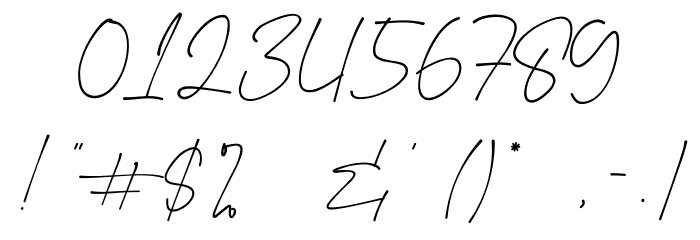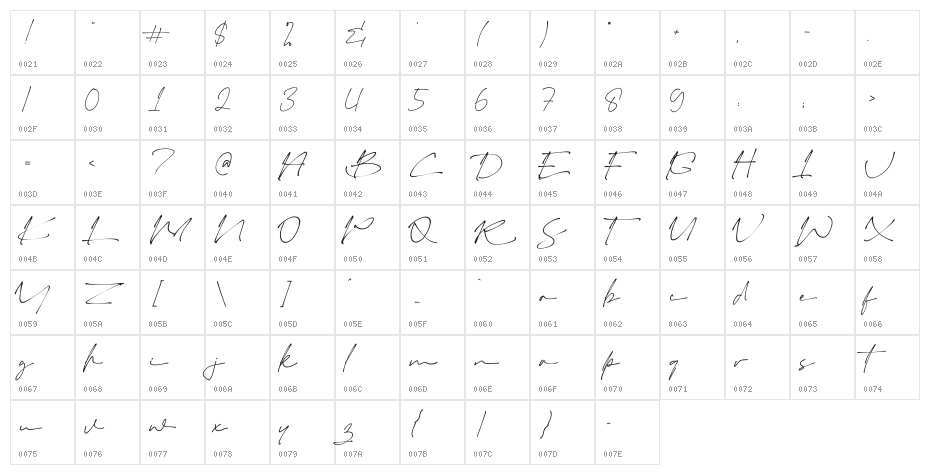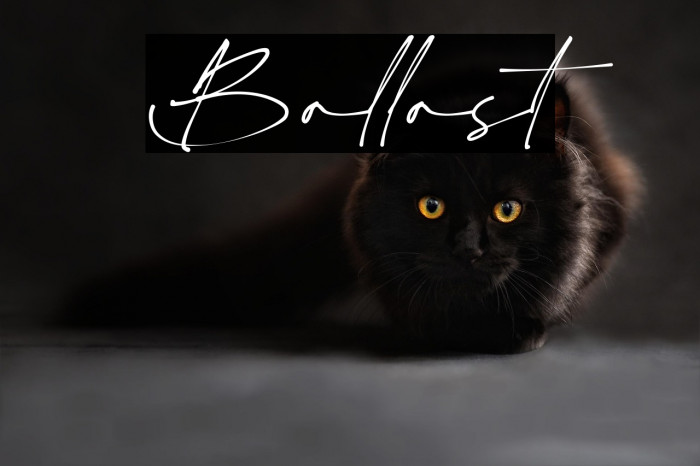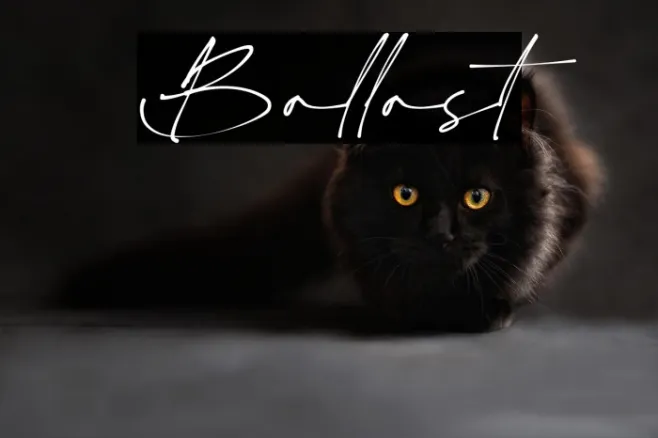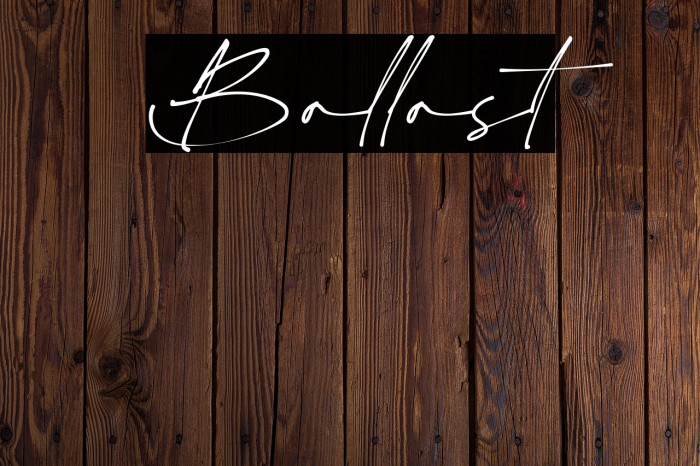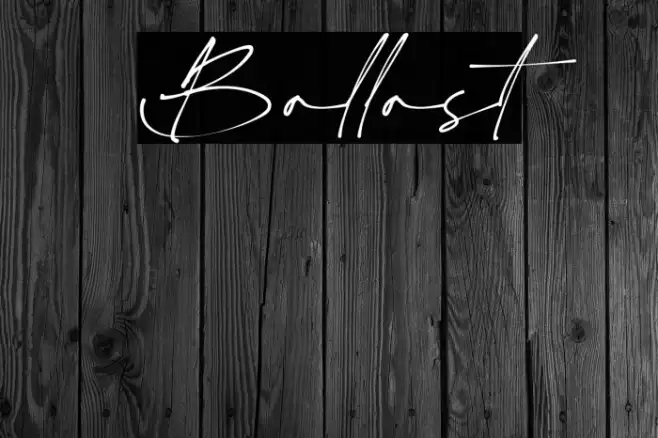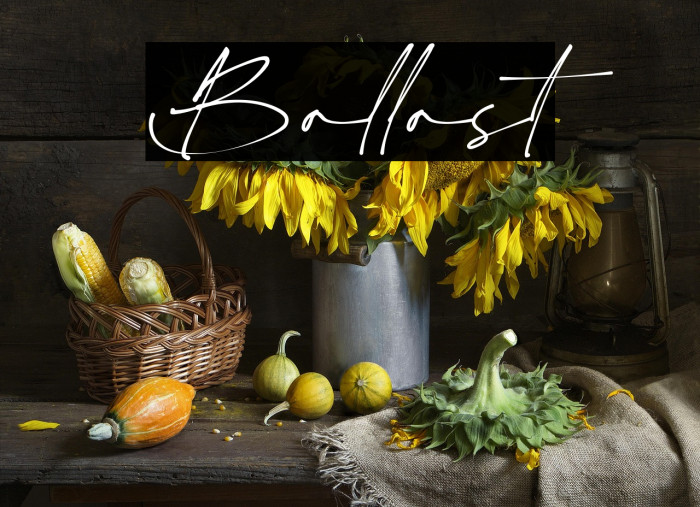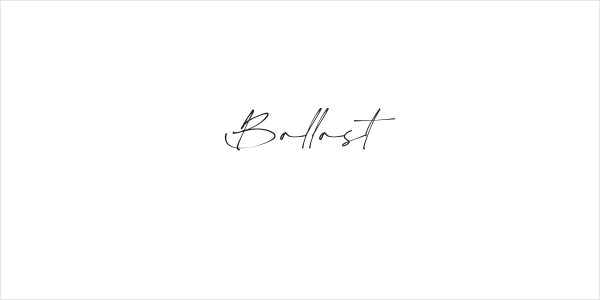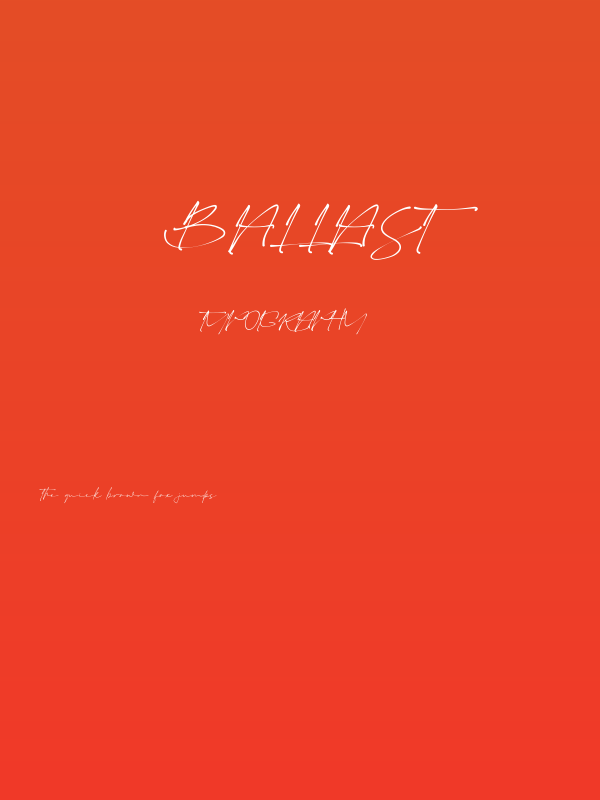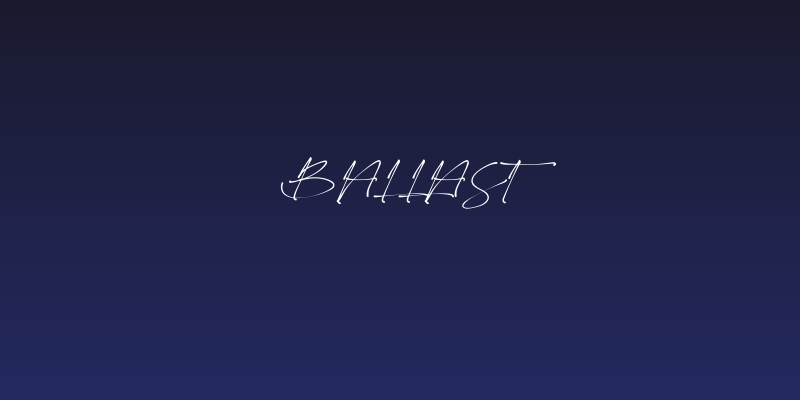
Ballast Font
Ballast Description
This font exhibits a dynamic and fluid handwritten style, characterized by its elegant and flowing script. The letters are connected in a natural, cursive manner, giving it a personal and informal touch. The strokes are thin and consistent, with a slight variation that adds to its organic feel. The uppercase letters maintain a consistent height, while the lowercase letters have a more varied baseline, enhancing the handwritten effect. Numbers and special characters are seamlessly integrated, maintaining the same fluidity and style. This font is perfect for projects that require a personal, human touch, such as invitations, greeting cards, or personal branding.
| Proposed Projects | Ideal for invitations, greeting cards, personal branding, and creative projects requiring a human touch. |